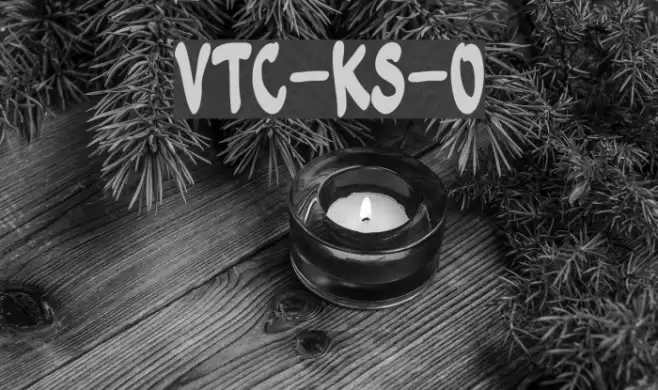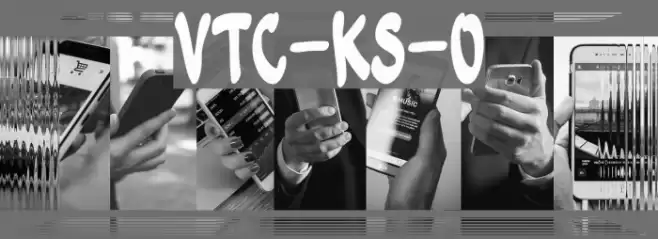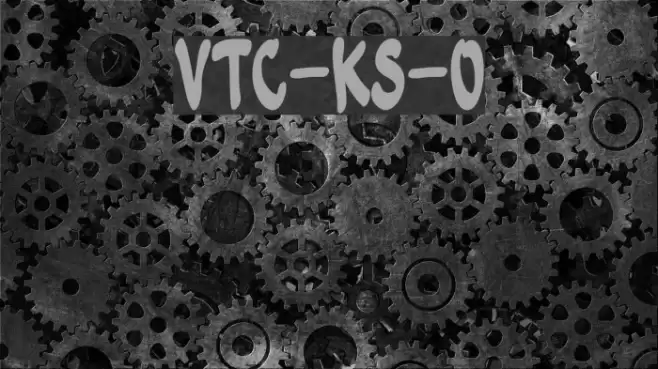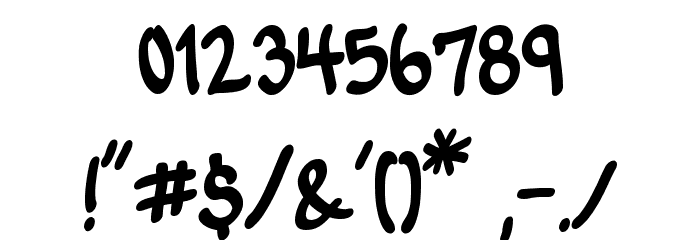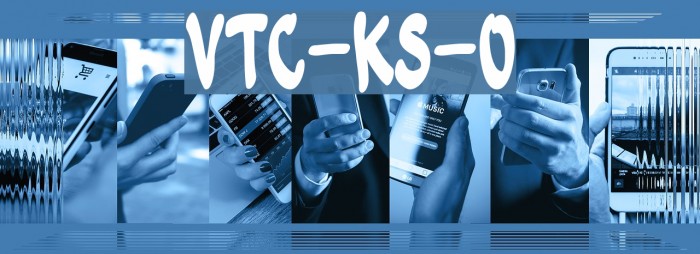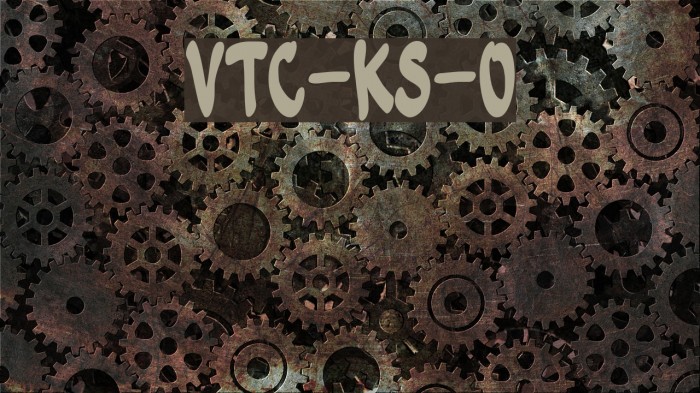
VTC-KomikSkans-One Font
VTC-KomikSkans-One Description
This playful and bold font features a handwritten style that exudes a sense of fun and creativity. The characters are rounded and slightly irregular, giving them a casual and approachable appearance. The uppercase and lowercase letters maintain a consistent style, with a slight slant that adds to the dynamic feel of the font. Numbers and special characters are crafted with the same playful touch, ensuring a cohesive look across all text elements. The font's thick strokes and rounded edges make it highly legible, even at smaller sizes, while its unique style ensures it stands out in any design.
A playful, bold handwritten font with rounded, irregular characters from Cartoon fonts.
- Proposed Projects: Ideal for comic books, children's books, playful branding, and casual invitations.
- Overall Style: Playful
- Use Case: Headlines, Logos, Informal Text